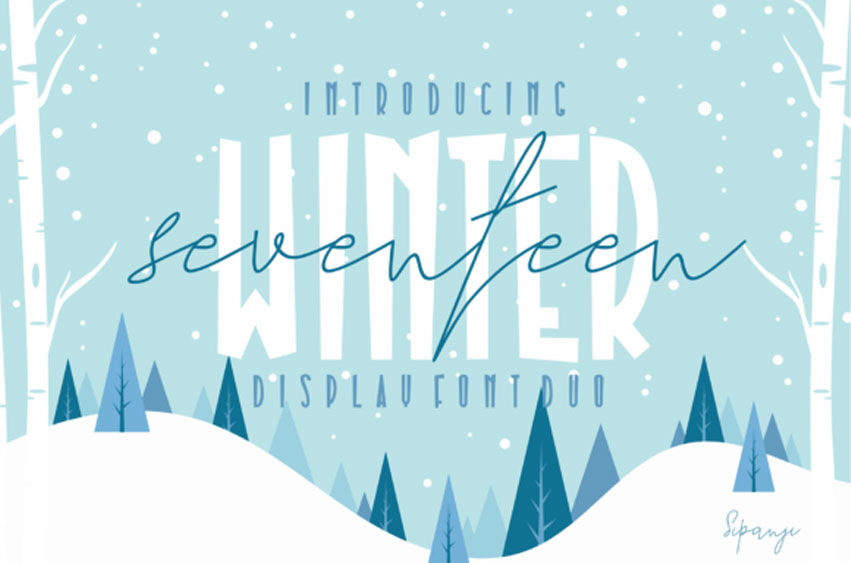
Seventeen Winter Font is a cute and fashionable duo font (display and handwritten).
Fall in love with its incredibly versatile style and use it to create gorgeous wedding invitations, beautiful stationary art, eye-catching social media posts, and much more!